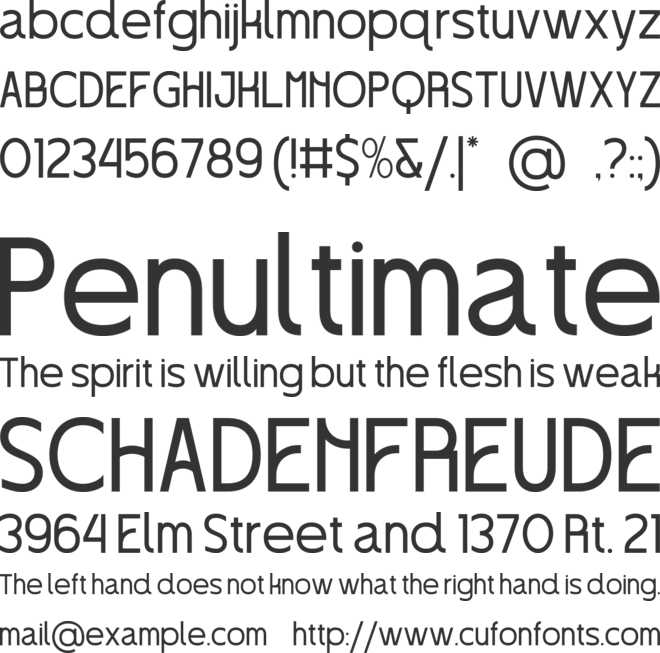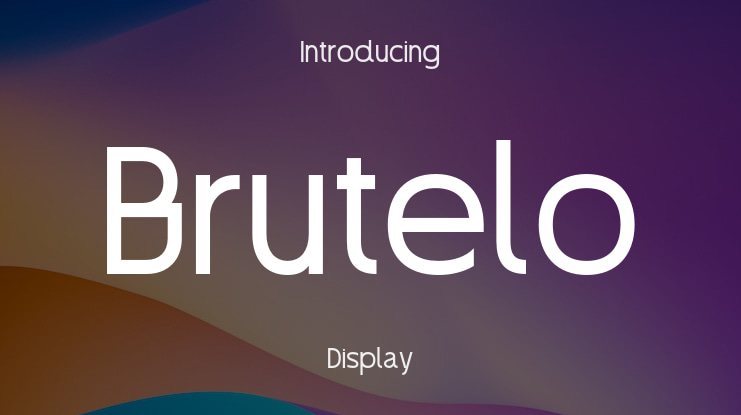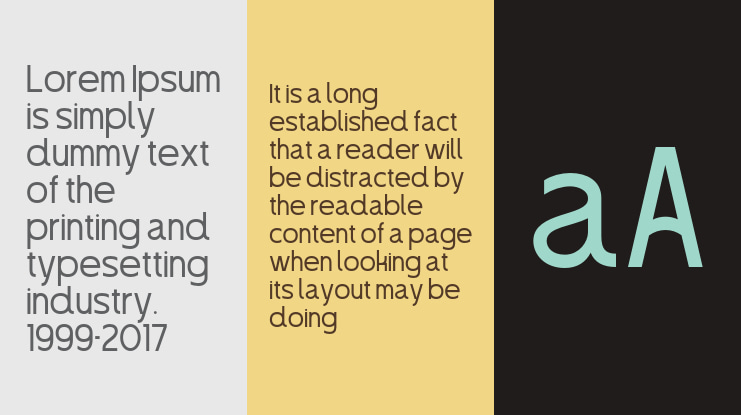
Brutelo Font
Say hello to Brutelo, a bold and playful take on Neo Brutalism!
This font brings strong geometry, quirky shapes, and confident energy all in one package. Whether you’re designing a poster, logo, or social media post, Brutelo knows how to grab attention without even trying.
It’s clean but not boring, structured but full of personality — just like your favorite creative chaos. With 3 weights (Light, Regular, and Bold), you can switch the mood from chill to loud in seconds.
So if you’re the type who loves standing out with style and confidence, Brutelo is your new design bestie